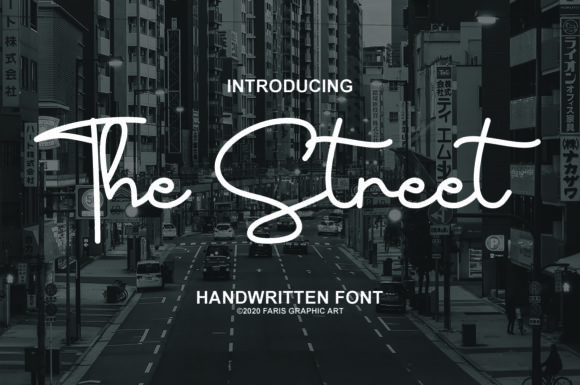
Get ready to stitch your way to stunning creations with The Street Font, an exquisite handwritten font designed to elevate your cross-stitch projects to new heights of elegance and charm.
Immerse yourself in the world of The Street, where every letter dances with grace upon the canvas of your embroidery. Its fluid lines and captivating glyphs will effortlessly add a touch of sophistication to your masterpieces, transforming them into works of art that radiate with timeless beauty.
Unlike ordinary fonts, The Street boasts a PUA-encoded design, unlocking a treasure trove of hidden characters and swashes. Unleash your creativity and explore endless possibilities as you effortlessly access these embellishments, adding depth and dimension to your cross-stitch creations.
With The Street Font, you'll discover a harmonious blend of classic calligraphy and modern flair. Its varying baseline and stunning alternates introduce a touch of whimsy and originality, ensuring that your projects stand out from the crowd.